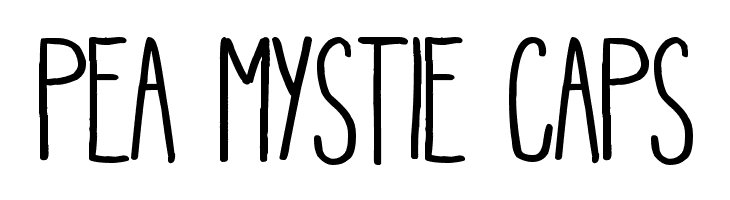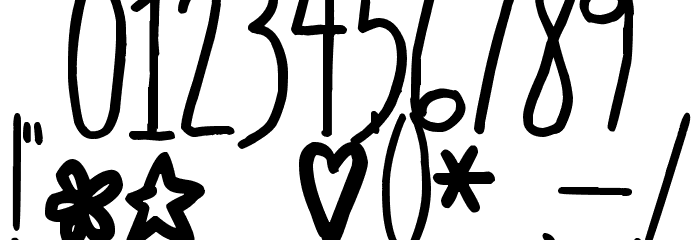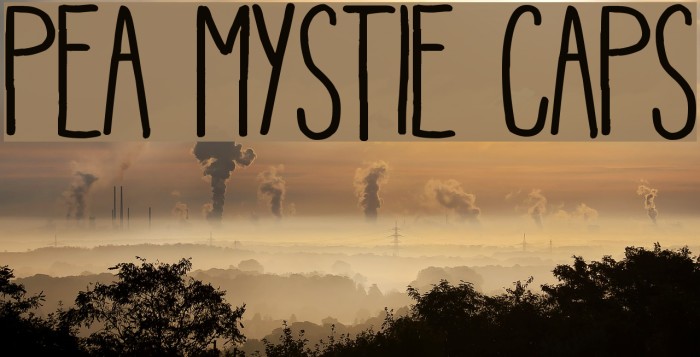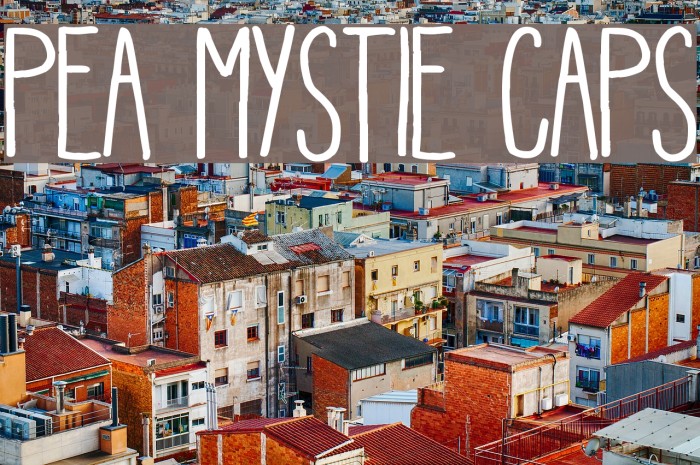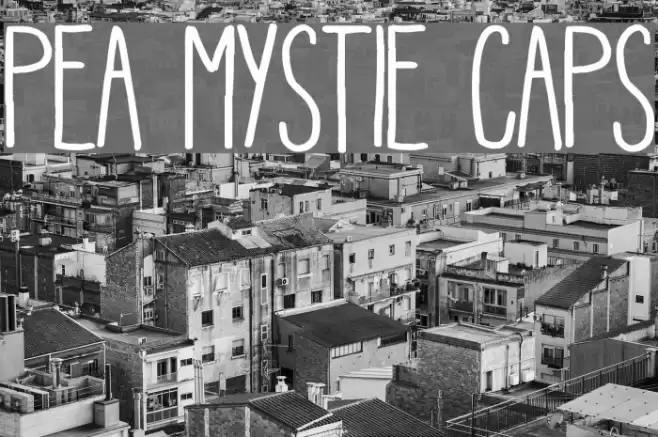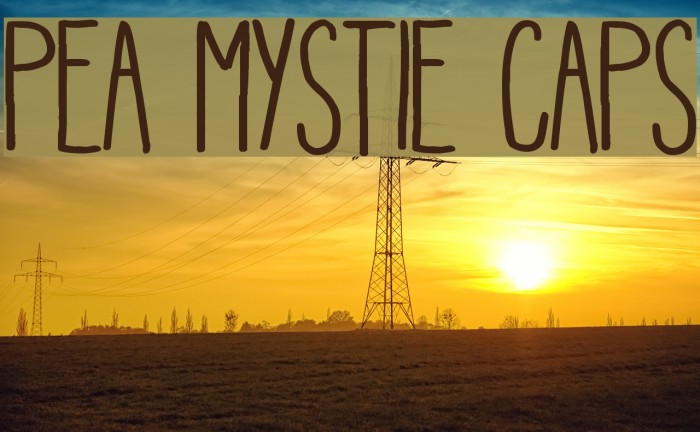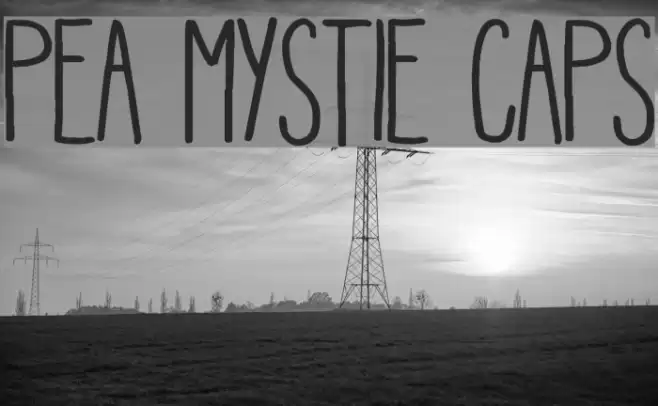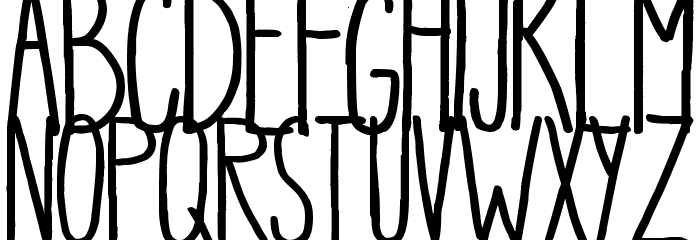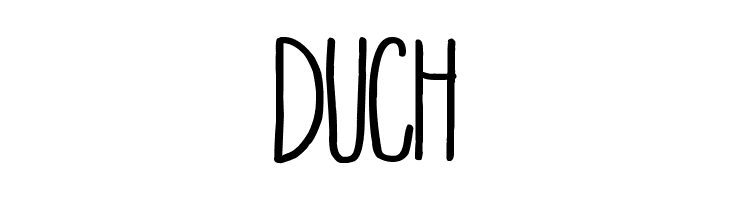
Pea Mystie Caps Font
Pea Mystie Caps Description
This font features a playful and whimsical handwritten style, characterized by tall, narrow letters with a slightly uneven baseline. The strokes are thin and consistent, giving it a casual and informal appearance. The uppercase and lowercase letters maintain a cohesive look, with rounded edges and a slight slant, adding to its charm. The numbers and special characters follow the same playful aesthetic, making it suitable for creative projects. The overall design is reminiscent of doodles or sketches, perfect for adding a personal touch to any design.
A playful, handwritten font with tall, narrow letters and a whimsical style from Uncategorized fonts.